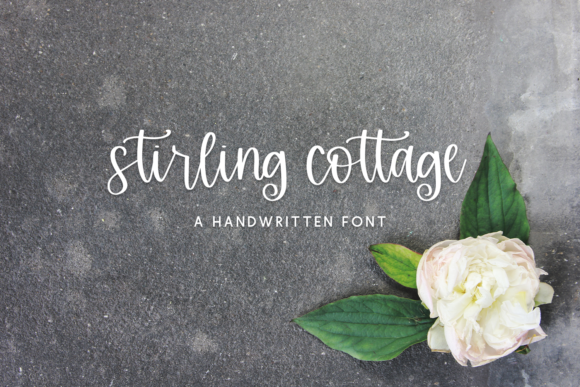
Feast your eyes on Stirling Cottage Script, an exquisite handwritten font that gracefully dances across the digital canvas. Its delicate strokes and elegant curves imbue your designs with a touch of refinement, making it the perfect choice for creating breathtaking logos, headers, and branding elements that leave a lasting impression.
Brush your worries aside and let your creativity flourish with Stirling Cottage Script. This versatile font is the perfect companion for a wide range of projects, from whimsical invitations to heartfelt greeting cards. Its ability to seamlessly blend with various design styles makes it an absolute joy to work with. Each letterform has been meticulously crafted to ensure visual harmony and a delightful user experience.
Stirling Cottage Script isn't just a font; it's an invitation to let your imagination run wild. Its natural and organic flow adds a touch of warmth and charm to any project, making it ideal for creating designs that resonate with audiences on a deeper level. So, dive into the world of Stirling Cottage Script and let your creativity shine brighter than ever before!